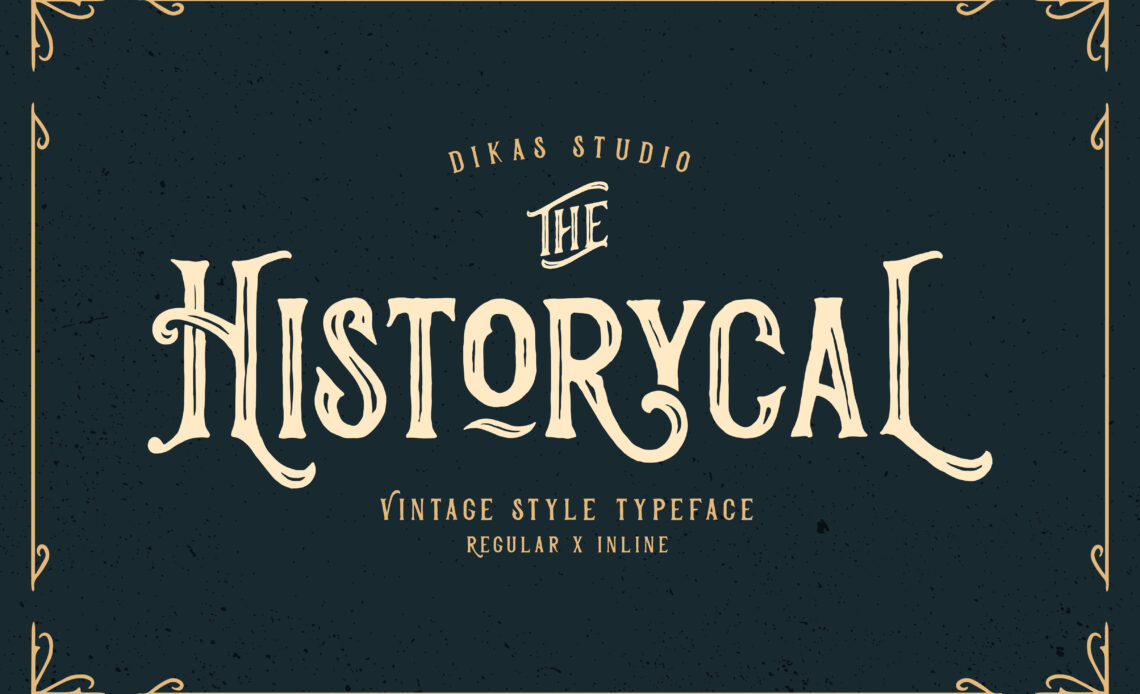
Historycal Font
Embark on a Typographic Odyssey with Historycal Font: A Journey into Timeless Elegance
In the realm of digital artistry, fonts transcend mere characters; they become the brushstrokes that paint the canvas of your imagination. Historycal Font, a captivating creation from the esteemed Dikas Studio, emerges as a masterpiece, a testament to the enduring allure of vintage aesthetics.
Step into a world where nostalgia intertwines with innovation. Historycal Font's vintage-inspired charm evokes a sense of timeless elegance, effortlessly elevating your designs to new heights. Each letterform dances across the screen, carrying the weight of stories untold, inviting you to craft narratives that resonate with depth and character.
This remarkable font family boasts an array of styles, empowering you to unleash your creativity without bounds. Whether you seek to craft eye-catching headlines that command attention or weave intricate designs that captivate the senses, Historycal Font seamlessly adapts, becoming an extension of your artistic vision.
But Historycal Font is more than just a collection of glyphs; it's a journey through time. Its vintage undertones evoke memories of bygone eras, whispering tales of grandeur and sophistication. With each stroke, you'll feel the weight of history, inspiring you to create designs that transcend the boundaries of time.
Join the ranks of discerning designers who recognize the transformative power of Historycal Font. Let its vintage allure ignite your imagination, propelling your designs to new heights of excellence. Embrace the timeless beauty of Historycal Font and embark on a typographic odyssey that will captivate and inspire for generations to come.